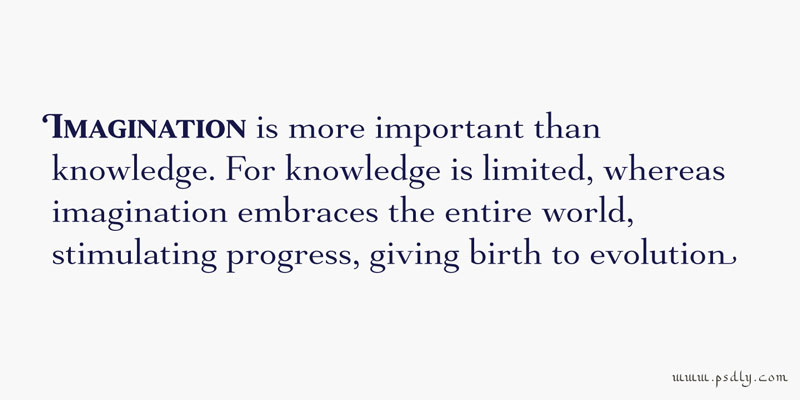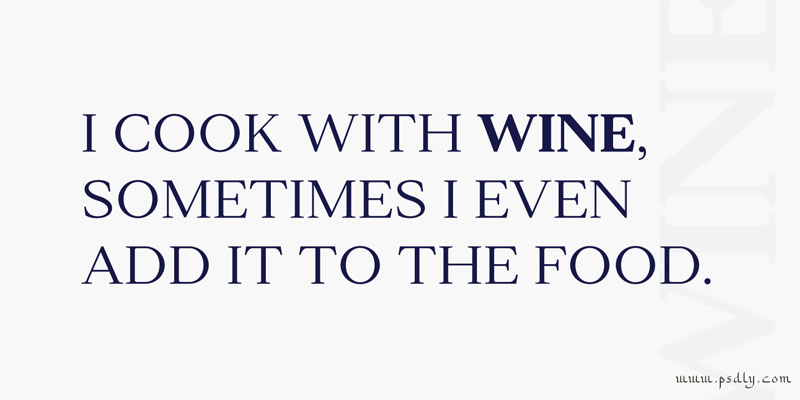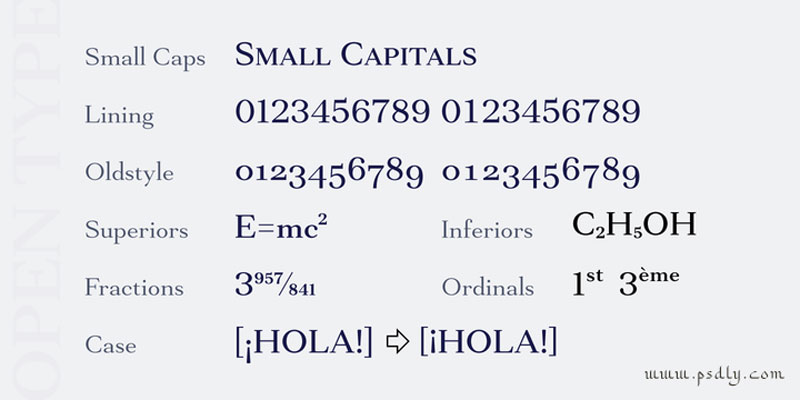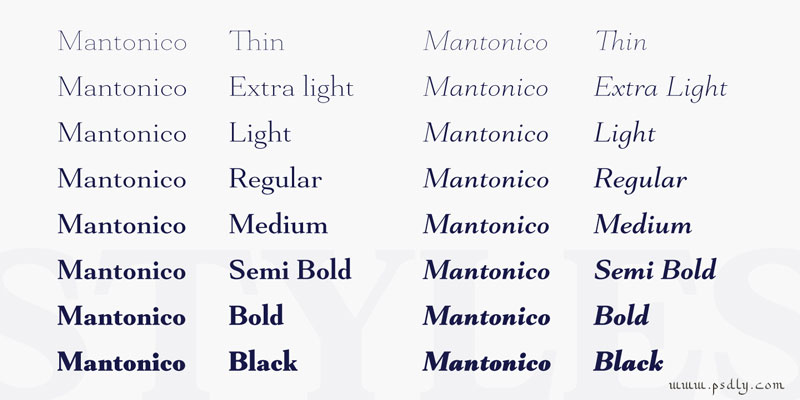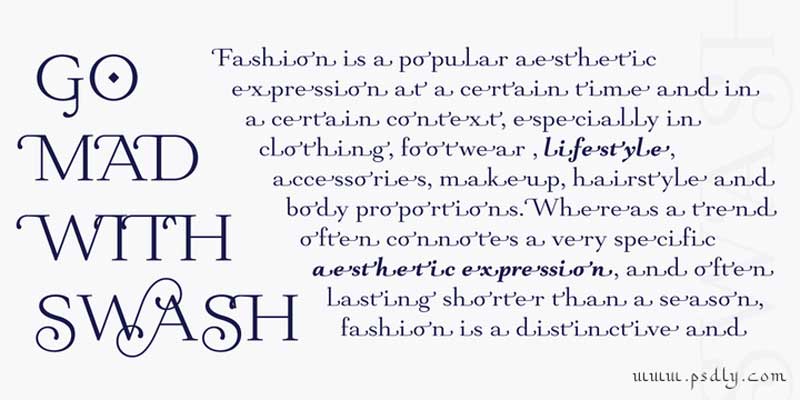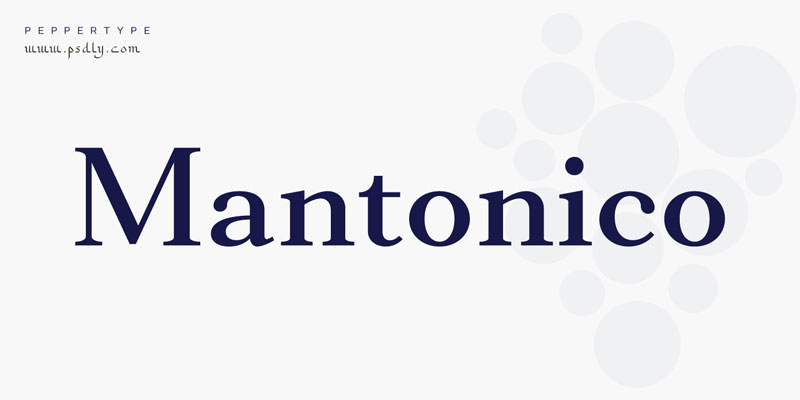
Mantonico Font Family
Mantonico is a soft and friendly serif type family with low x-height. Its slightly wide proportions and prominent terminals create a peculiar texture suitable for long reading.
The style range encompasses 8 weights with corresponding italics. The italics themselves are designed for a specific soft, almost fluid feel. Also checkout Qettira Script Font.
The typeface features rich language support including Cyrillic and a wide range of OpenType options such as small capitals, numerous sets of digits and over 300 swashed characters.